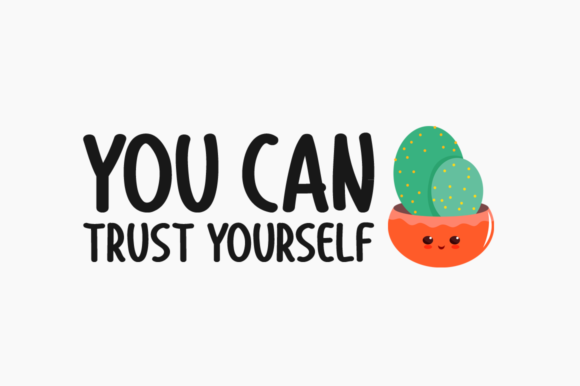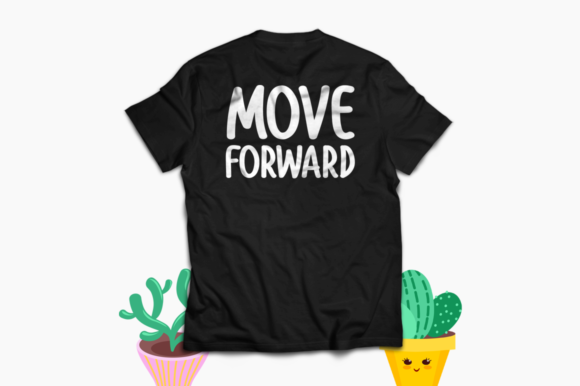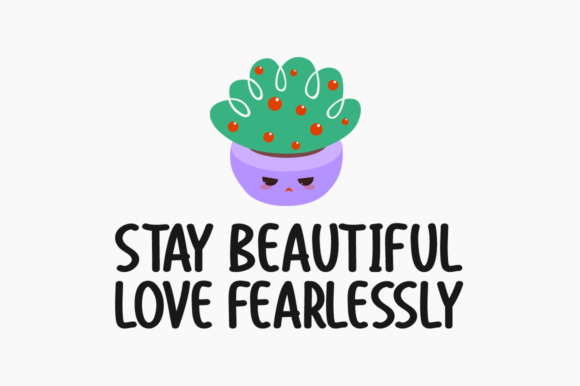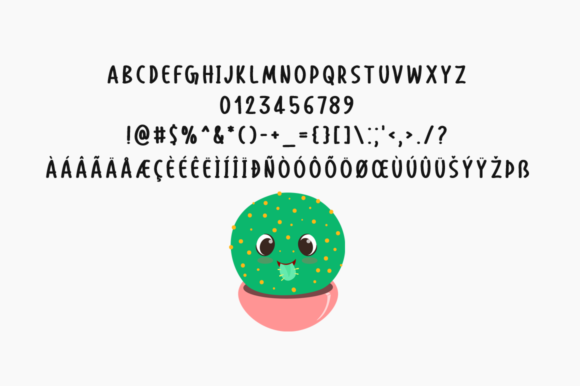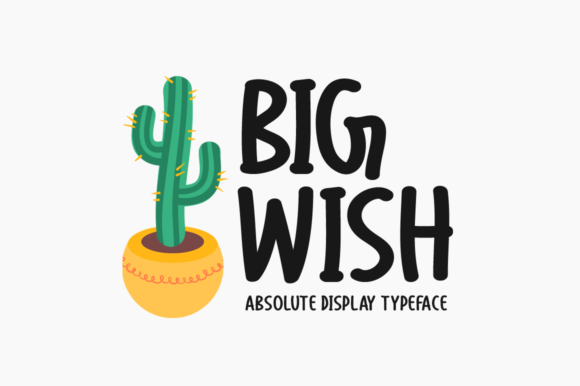
Introducing Big Wish Font: The Ultimate Display Font for Creative Projects
Are you tired of using the same old fonts for your creative projects? Look no further! Big Wish Font is here to take your designs to the next level. This cool, casual, and fun display font is perfect for adding a touch of personality to your work. In this article, we’ll dive into the features and benefits of Big Wish Font, and explore how it can elevate your designs.
A Versatile Font for a Wide Range of Projects
Big Wish Font is an incredibly versatile font that can be matched to a vast array of projects. Whether you’re working on a logo, poster, social media graphic, or website, this font is sure to make your design stand out. Its casual and fun vibe makes it perfect for creative projects that require a playful touch.
Key Features of Big Wish Font
- Cool and Casual Design: Big Wish Font boasts a unique and stylish design that’s sure to grab attention.
- Fun and Playful Vibe: The font’s playful personality makes it perfect for creative projects that require a lighthearted touch.
- Highly Versatile: Big Wish Font can be used for a wide range of projects, from logos and posters to social media graphics and websites.
- Easily Readable: Despite its playful design, Big Wish Font is highly readable, making it perfect for use in a variety of contexts.
Benefits of Using Big Wish Font
So, why should you choose Big Wish Font for your creative projects? Here are just a few benefits of using this amazing display font:
- Adds Personality to Your Design: Big Wish Font brings a unique and playful personality to your design, setting it apart from the rest.
- Increases Engagement: The font’s fun and casual design is sure to grab attention and increase engagement with your audience.
- Enhances Creativity: Big Wish Font’s versatility and playfulness make it the perfect tool for sparking creativity and bringing new ideas to life.
- Perfect for Branding: The font’s stylish and memorable design makes it perfect for use in branding and logo design.
How to Use Big Wish Font in Your Designs
Using Big Wish Font in your designs is easy! Here are a few tips to get you started:
- Pair it with Other Fonts: Big Wish Font pairs well with a variety of fonts, so don’t be afraid to experiment and find the perfect combination for your design.
- Use it for Headings and Titles: The font’s bold and playful design makes it perfect for use in headings and titles.
- Add it to Your Social Media Graphics: Big Wish Font is perfect for use in social media graphics, where its fun and casual design is sure to grab attention.
- Experiment with Colors and Textures: Don’t be afraid to get creative with Big Wish Font – experiment with different colors and textures to add depth and interest to your design.
In conclusion, Big Wish Font is a cool, casual, and fun display font that’s perfect for adding a touch of personality to your creative projects. Its versatility, readability, and playful design make it a must-have for designers and crafters looking to take their designs to the next level. So why wait? Add Big Wish Font to your creative toolkit today and start creating stunning designs that stand out from the crowd!